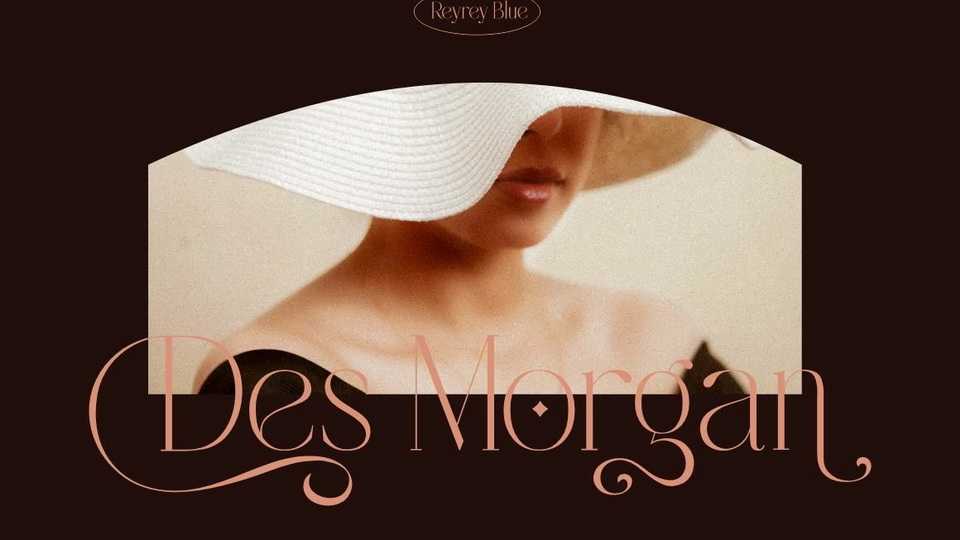
Download Des Morgan font, a unique, classic and elegant font that will make your presentation or logo even more beautiful and stunning. Des Morgan font is perfect for branding, logos, wedding stationery, cards, gift designs, photography, watermark, product packaging and quotes.
Designer: Reyrey Blue